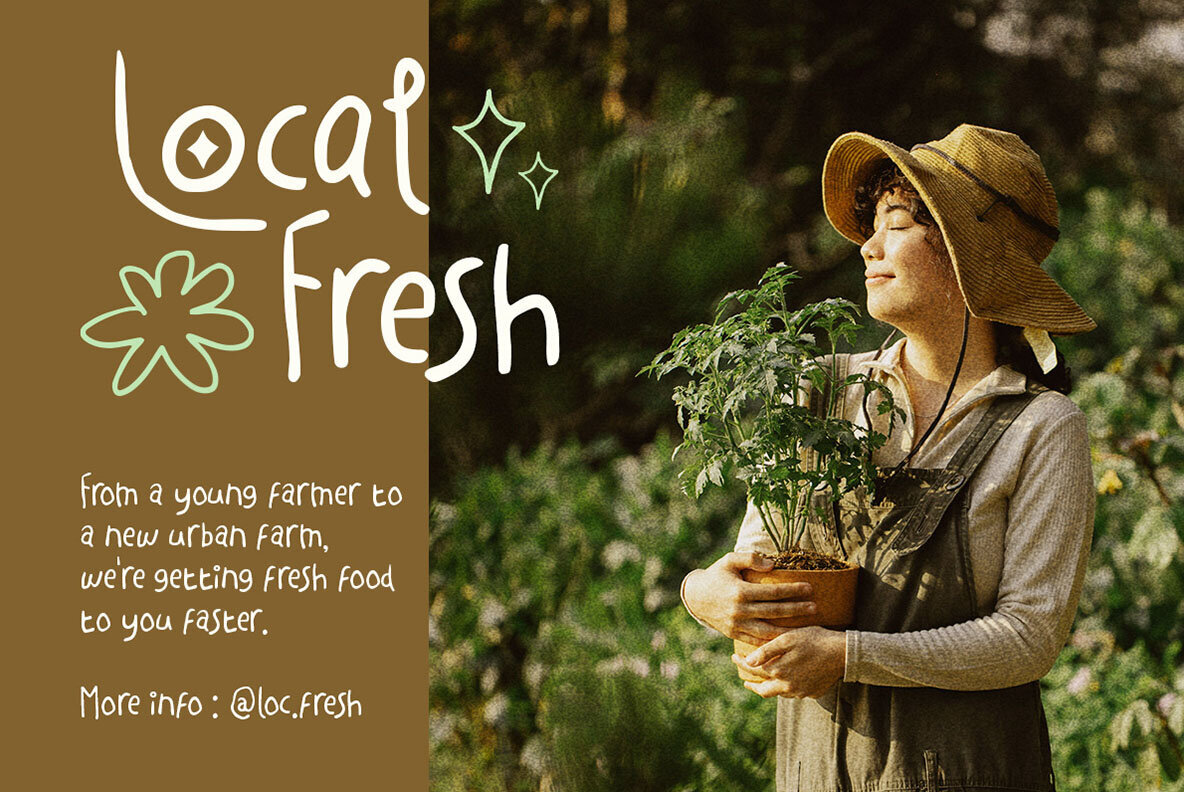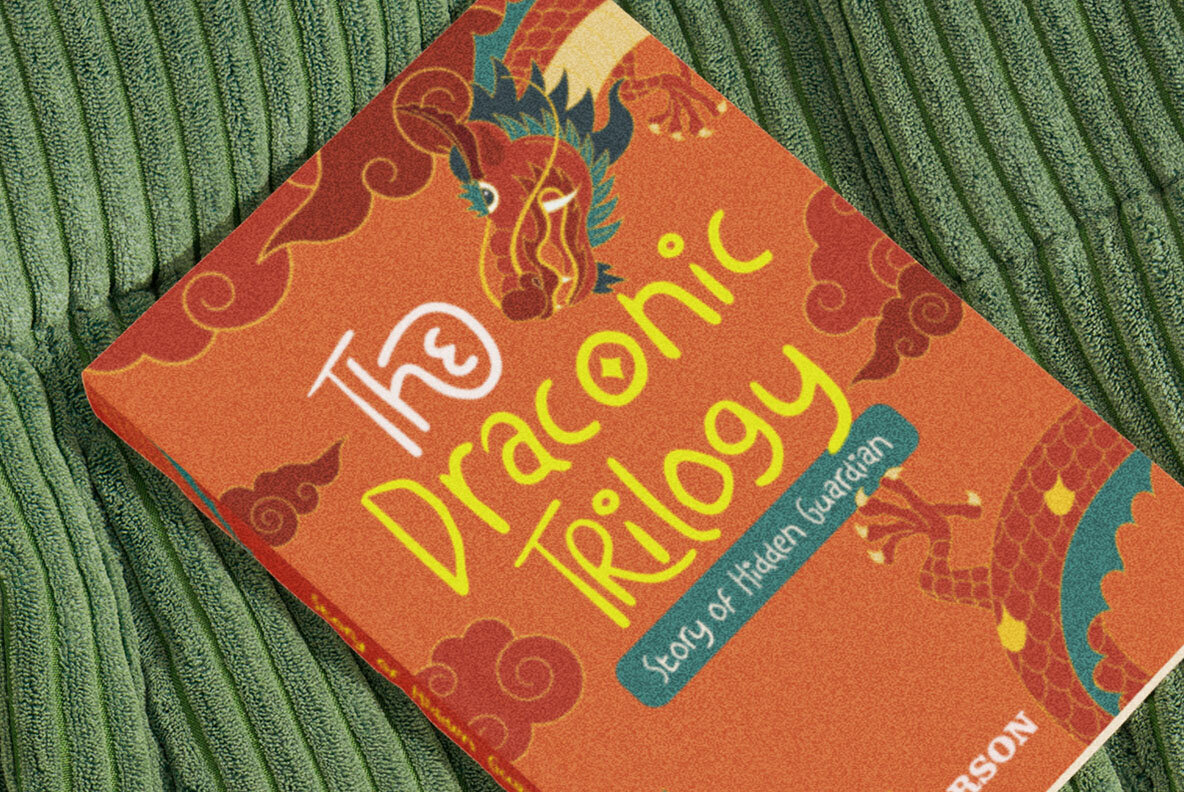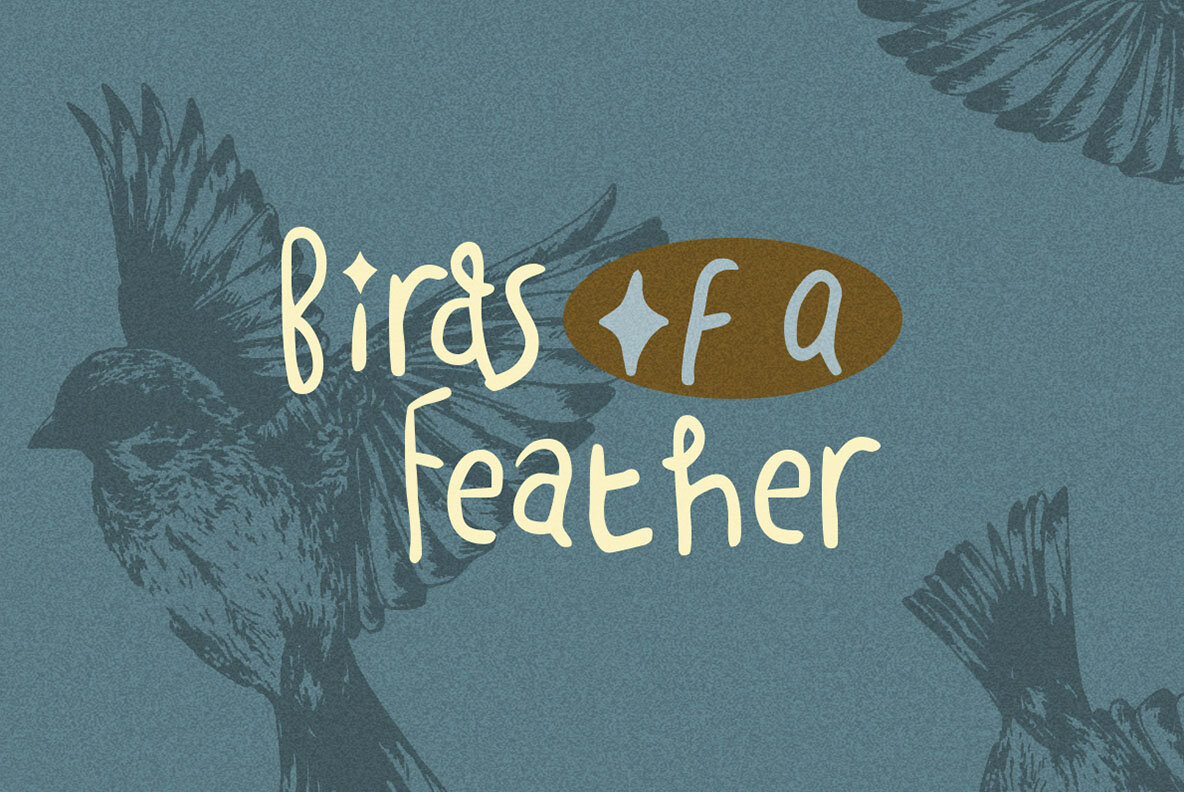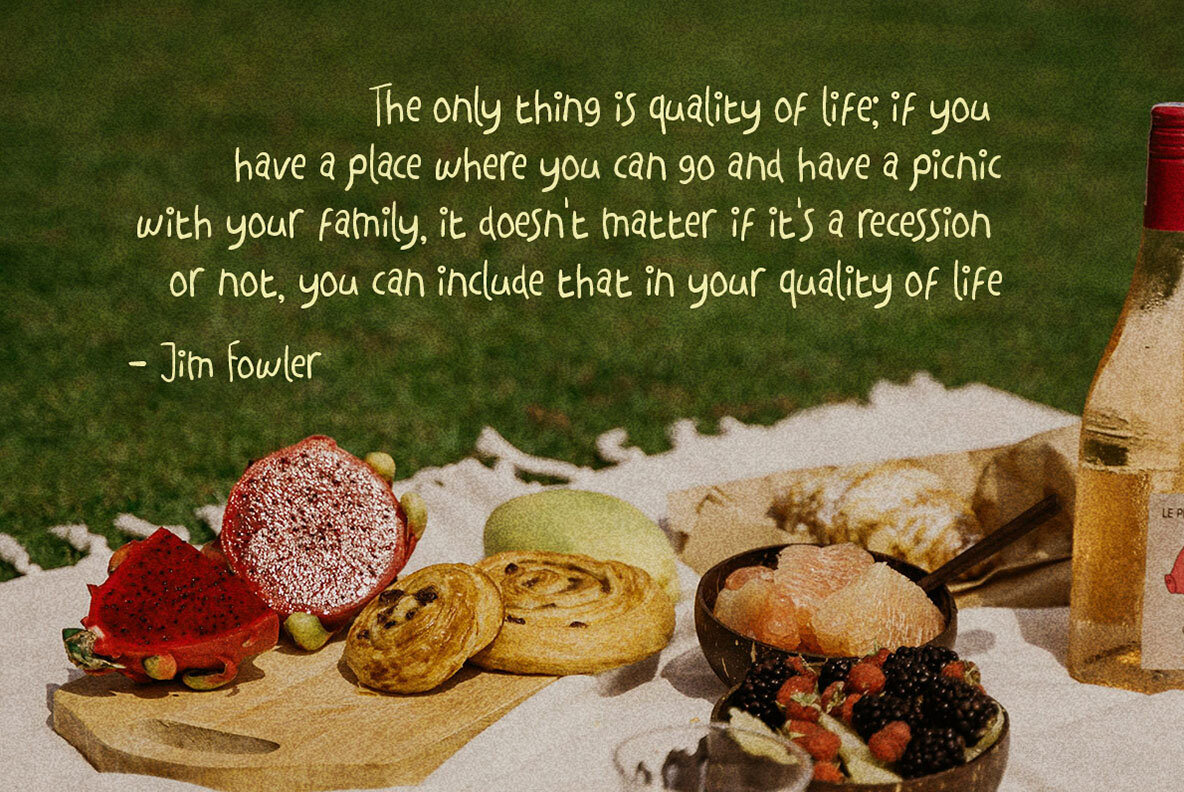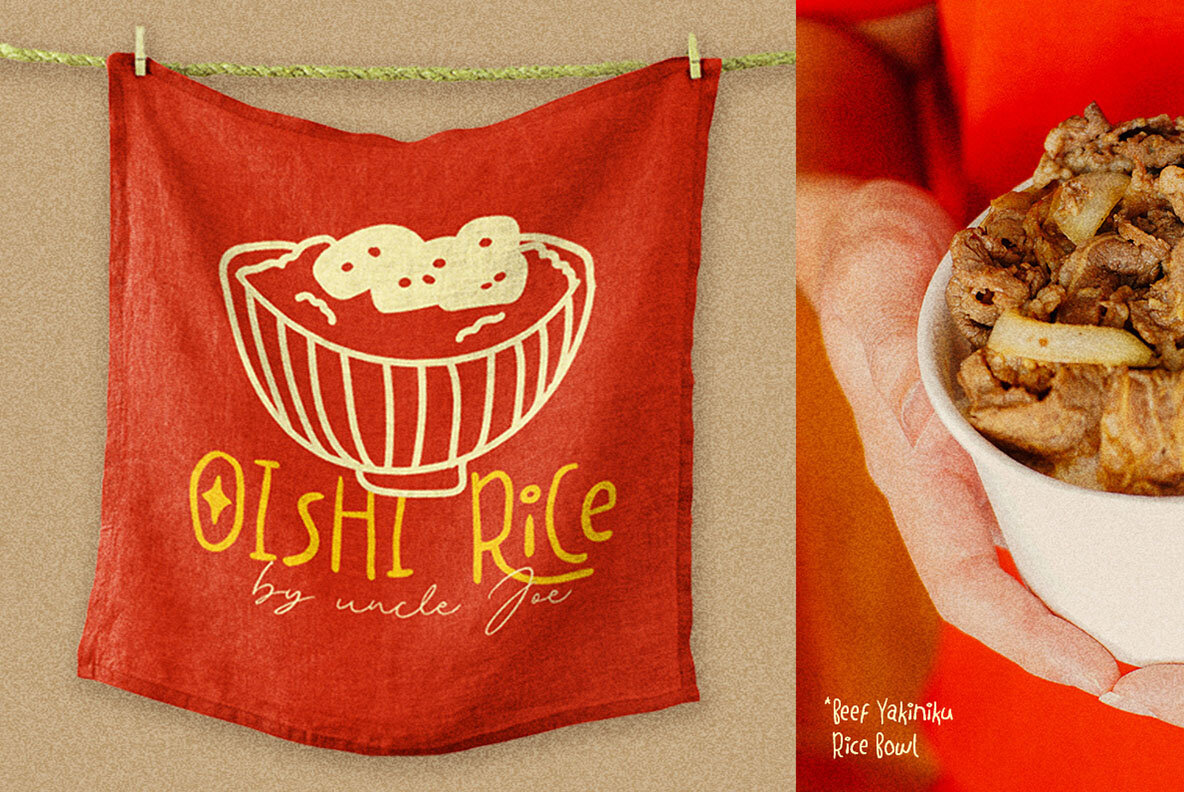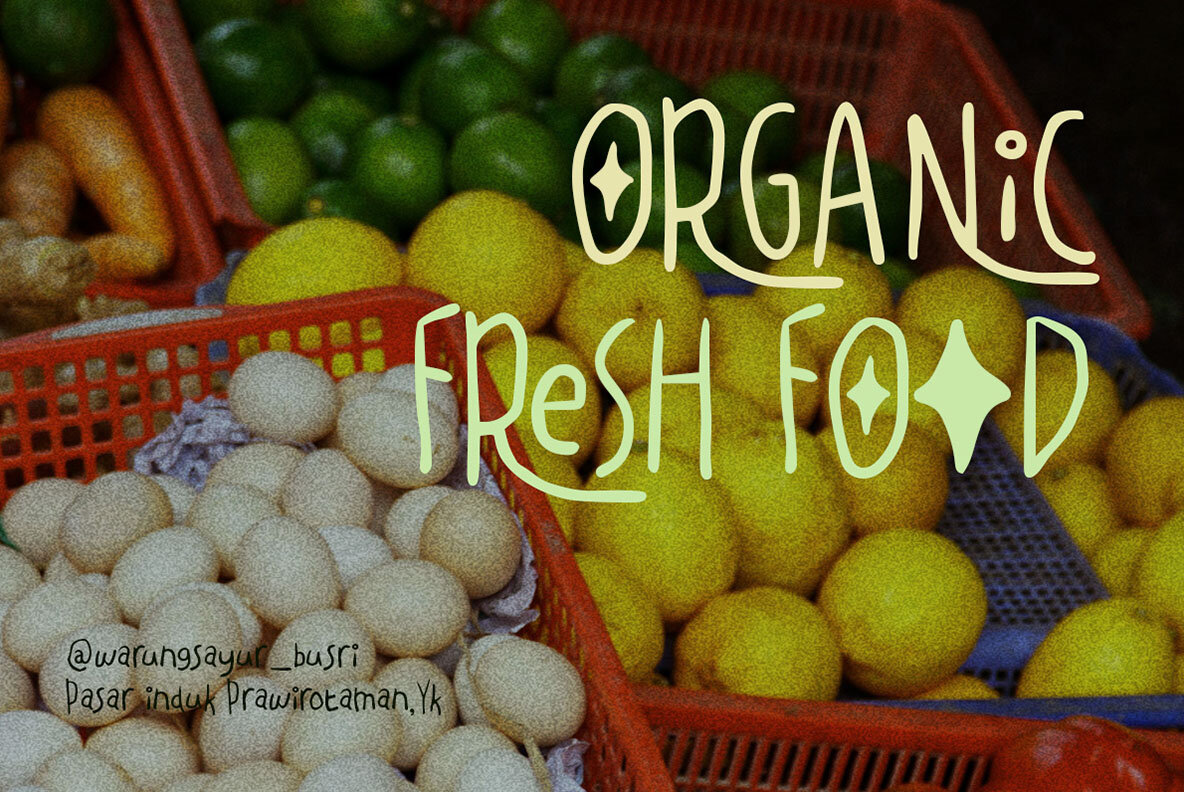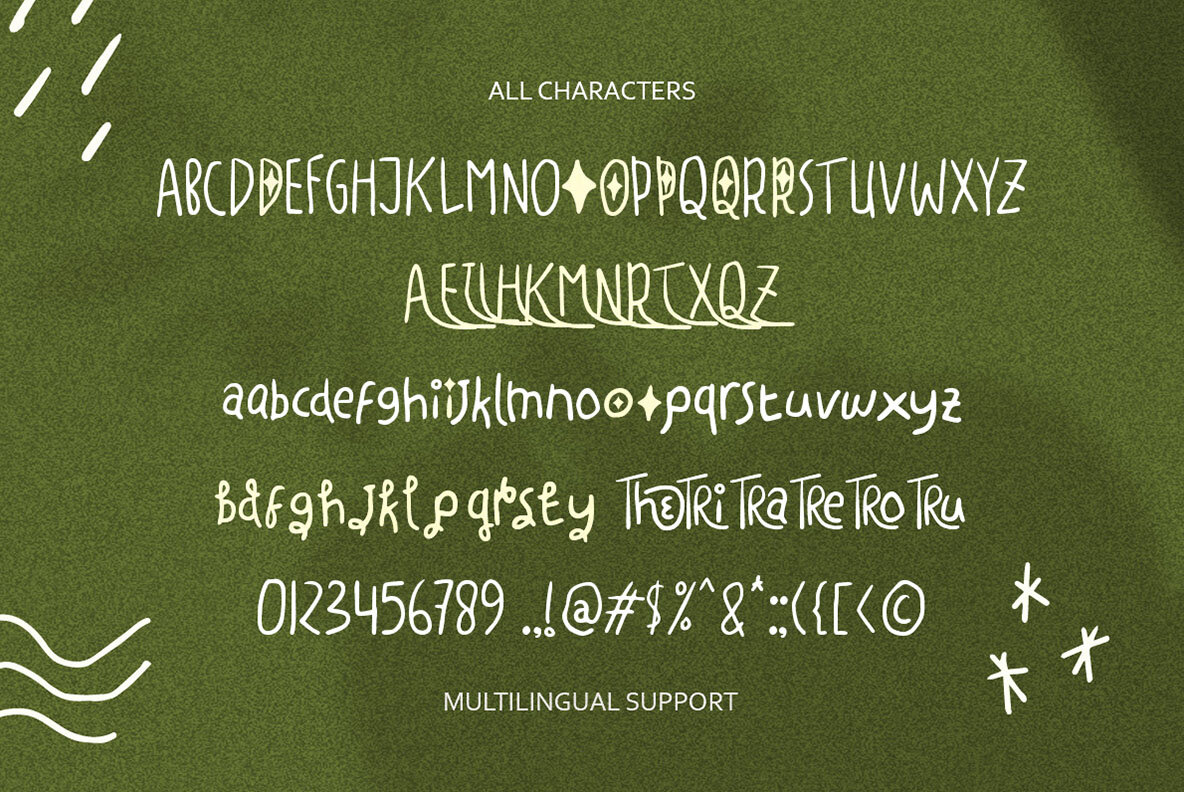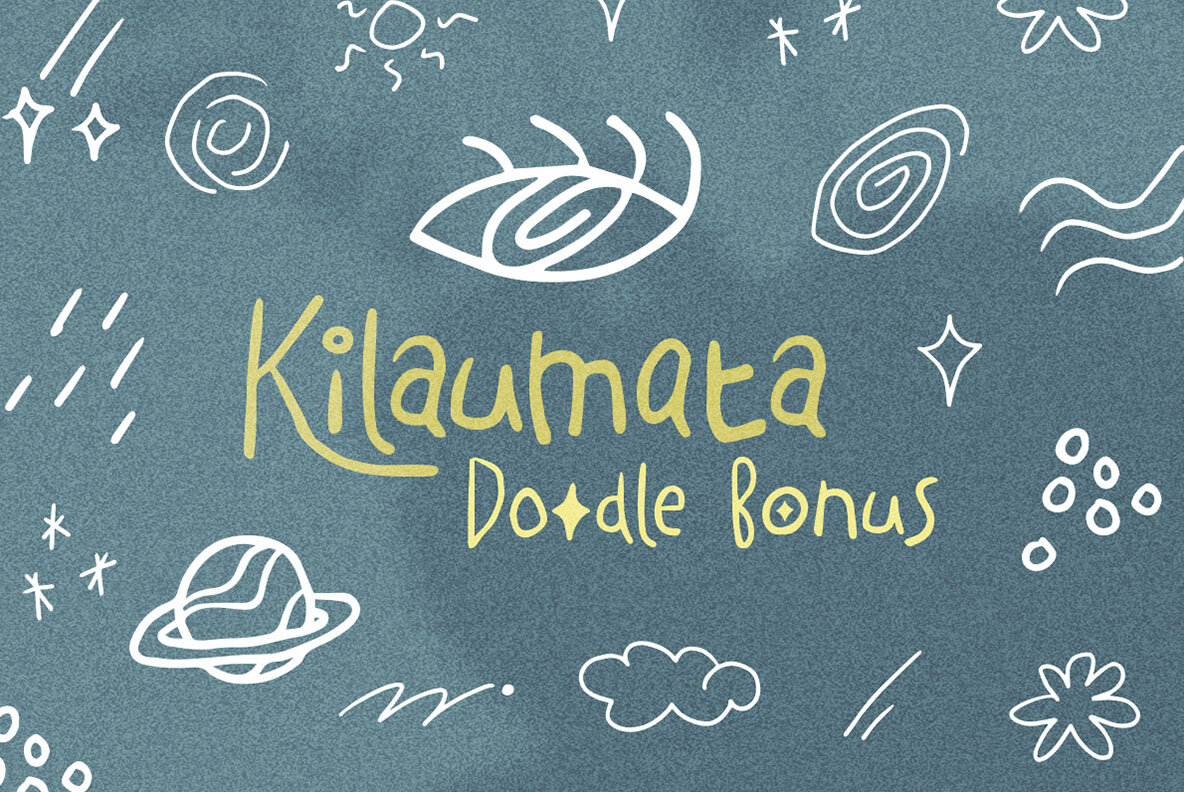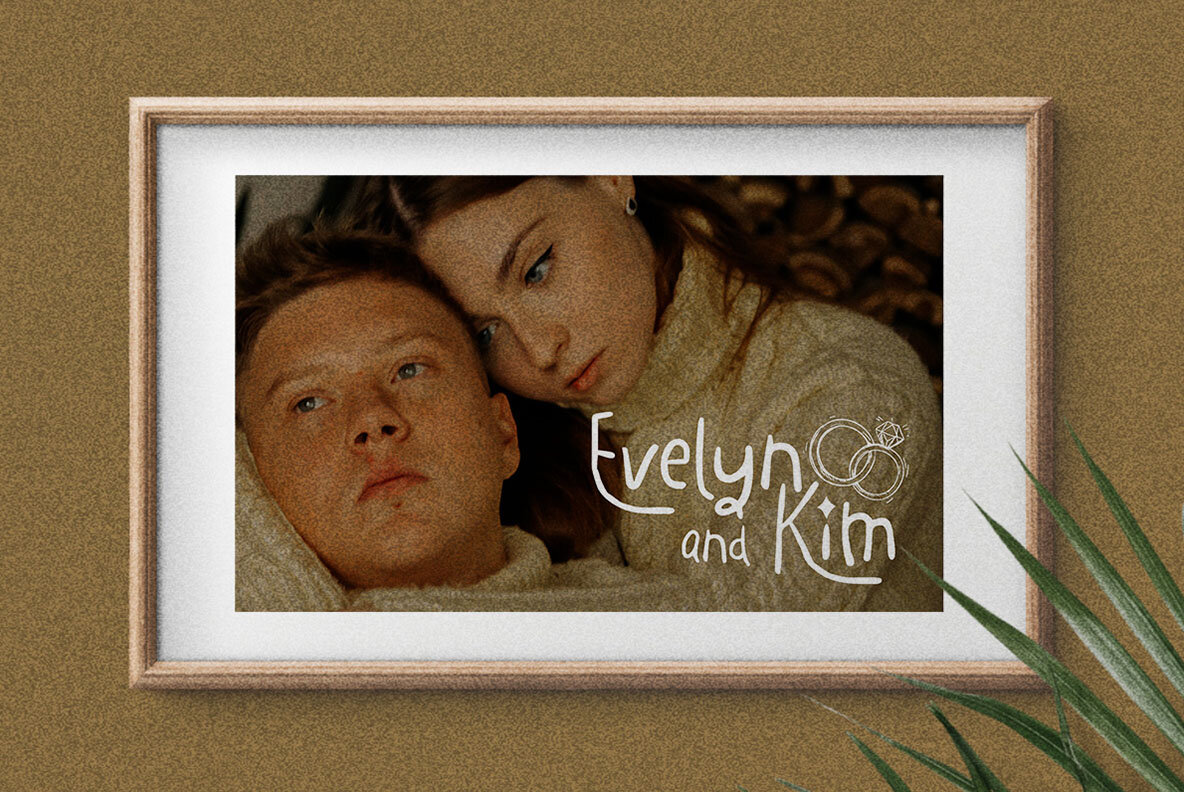
Kilaumata Font
Transform your designs with Kilaumata by Amelia Dian Isnaini. This handwritten font exudes a fun and cozy girly vibe, akin to real handwriting. Perfect for an array of design projects such as brand identities, novel titles, birthday invitations, and inspirational quotes. Let Kilaumata captivate your audience visually and enhance your creative projects.
- Uppercase & lowercase characters
- Numbers and punctuation
- Bonus sketchy doodles
- Alternates and Ligatures
- Multilingual support